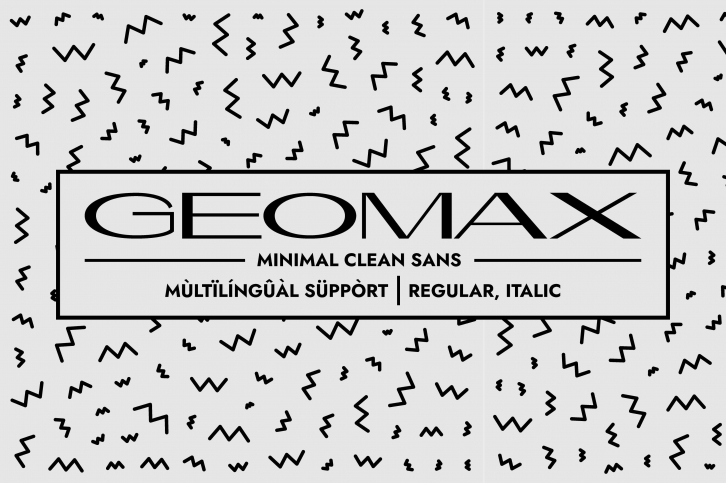
Geomax is a geometric and postmodern sans serif typeface. Despite it having a really wide and fat aspect, the contrast in the construction of the glyphs was able to render it really delicate and chic. It works the best as a display font, for titles, especially on large dimensions. It will assist you when you are in a need of a special touch yet a really powerful header that grabs attention. Add this font to your creations and realize how much it has the potential to make your creations stand out!